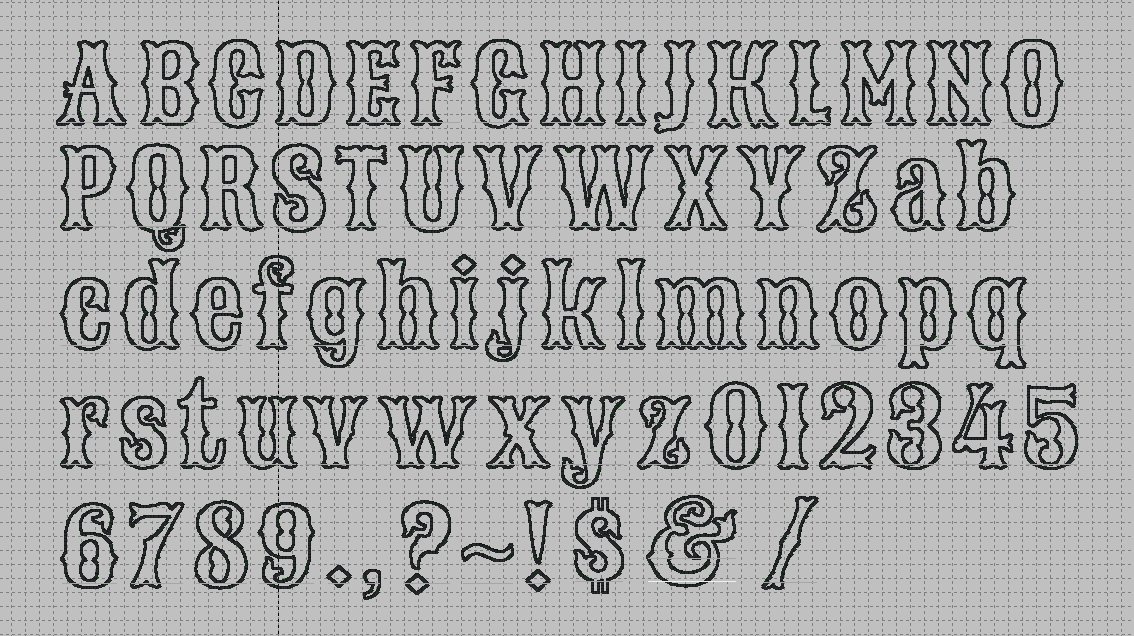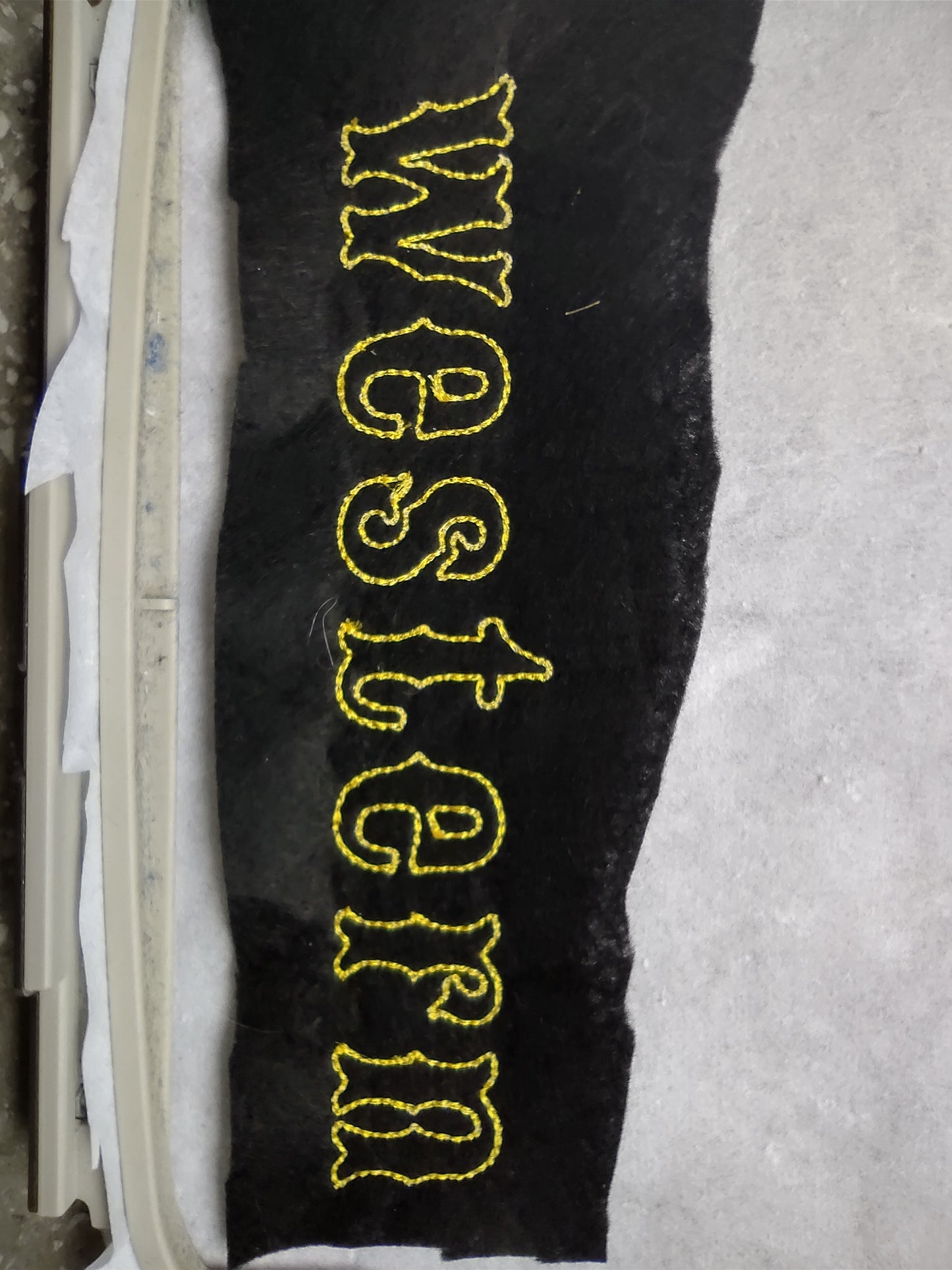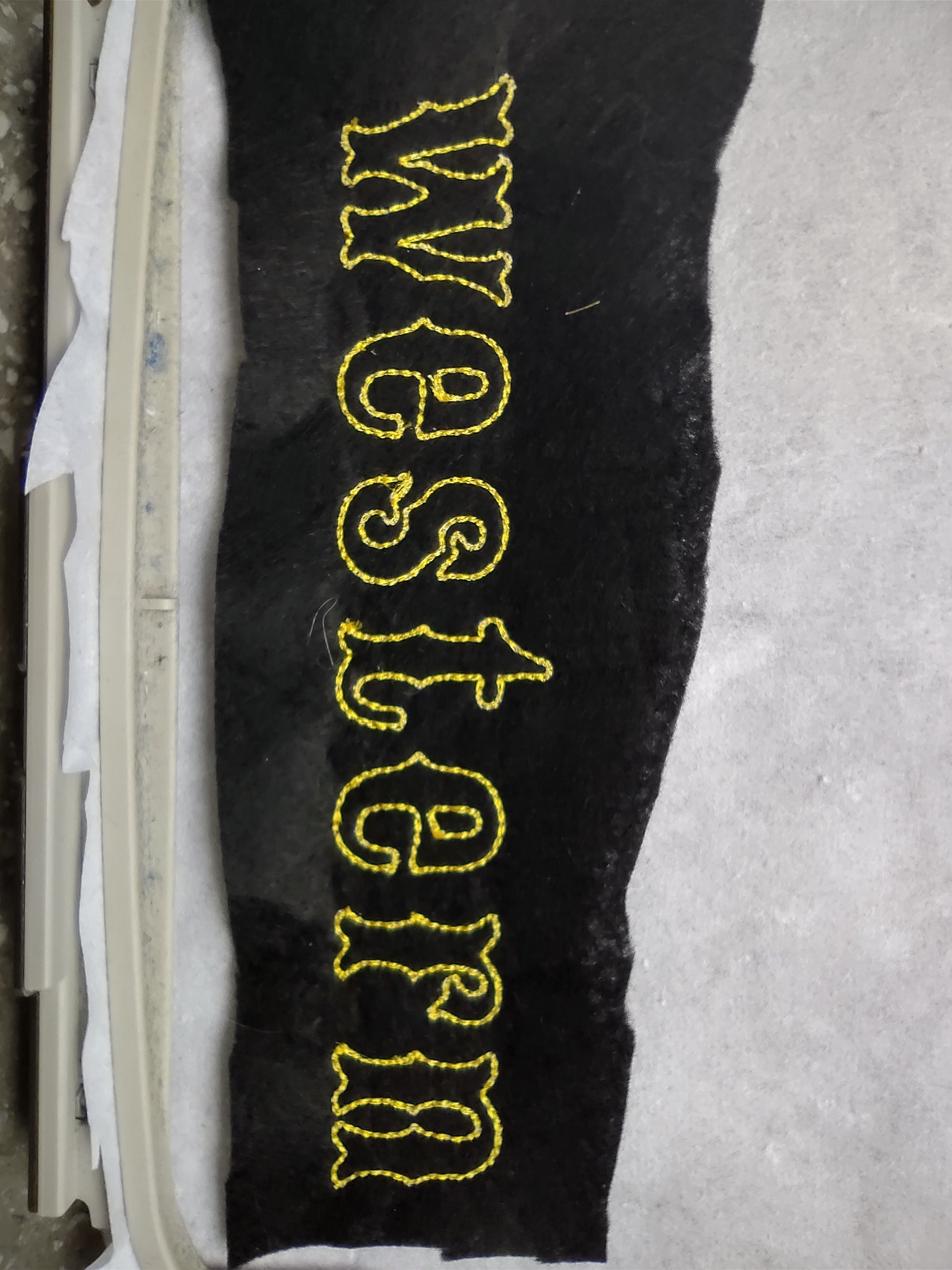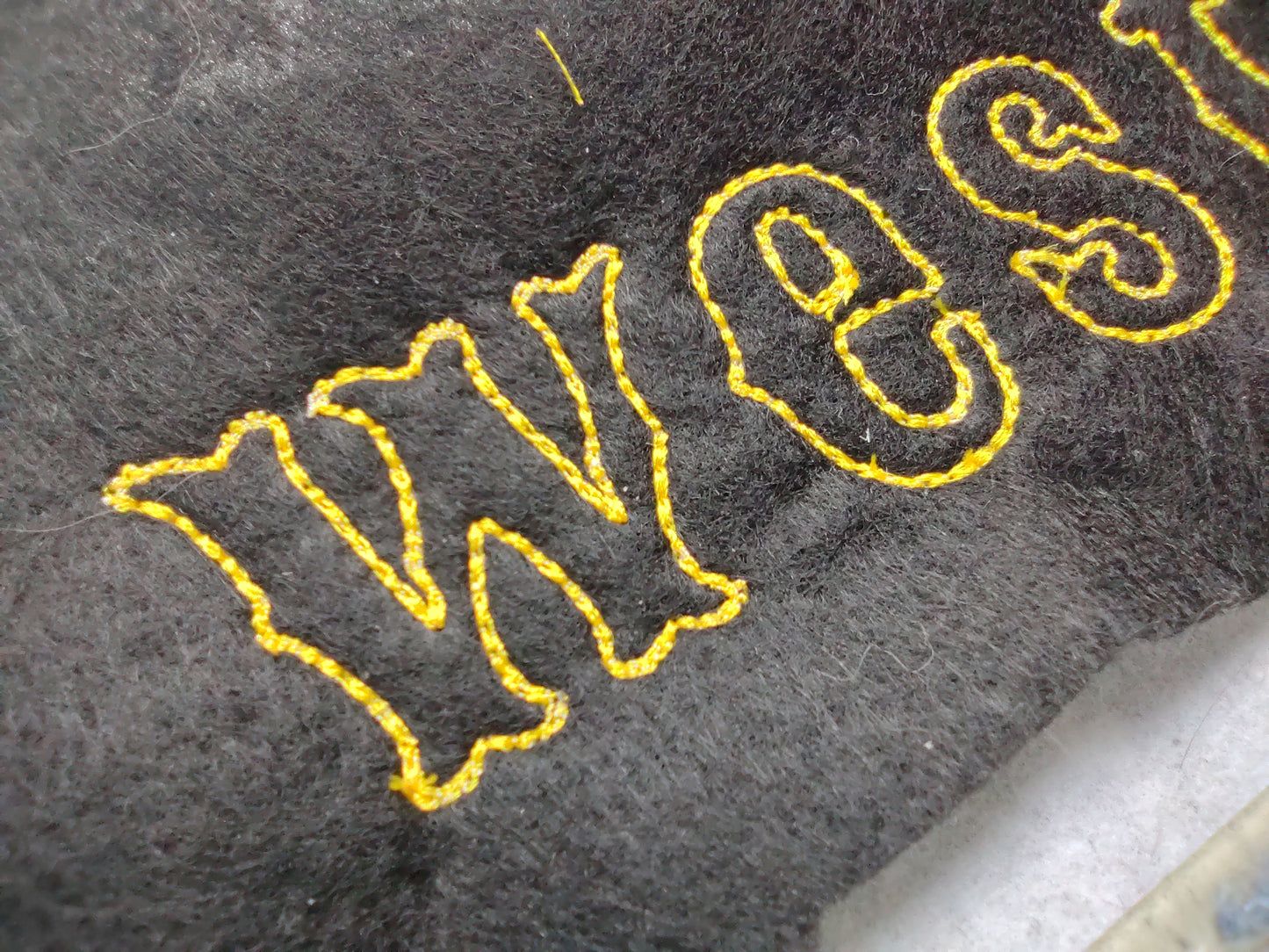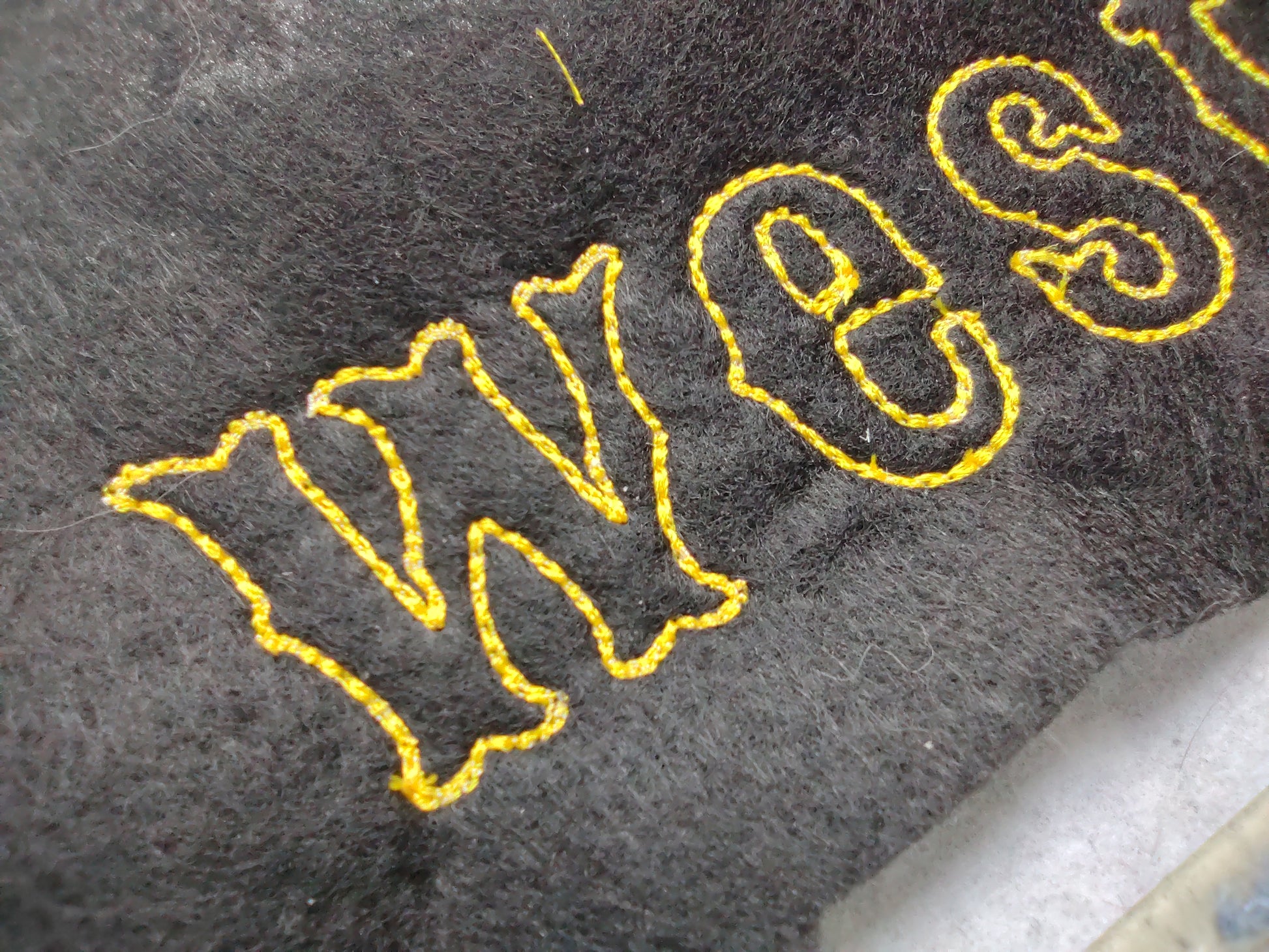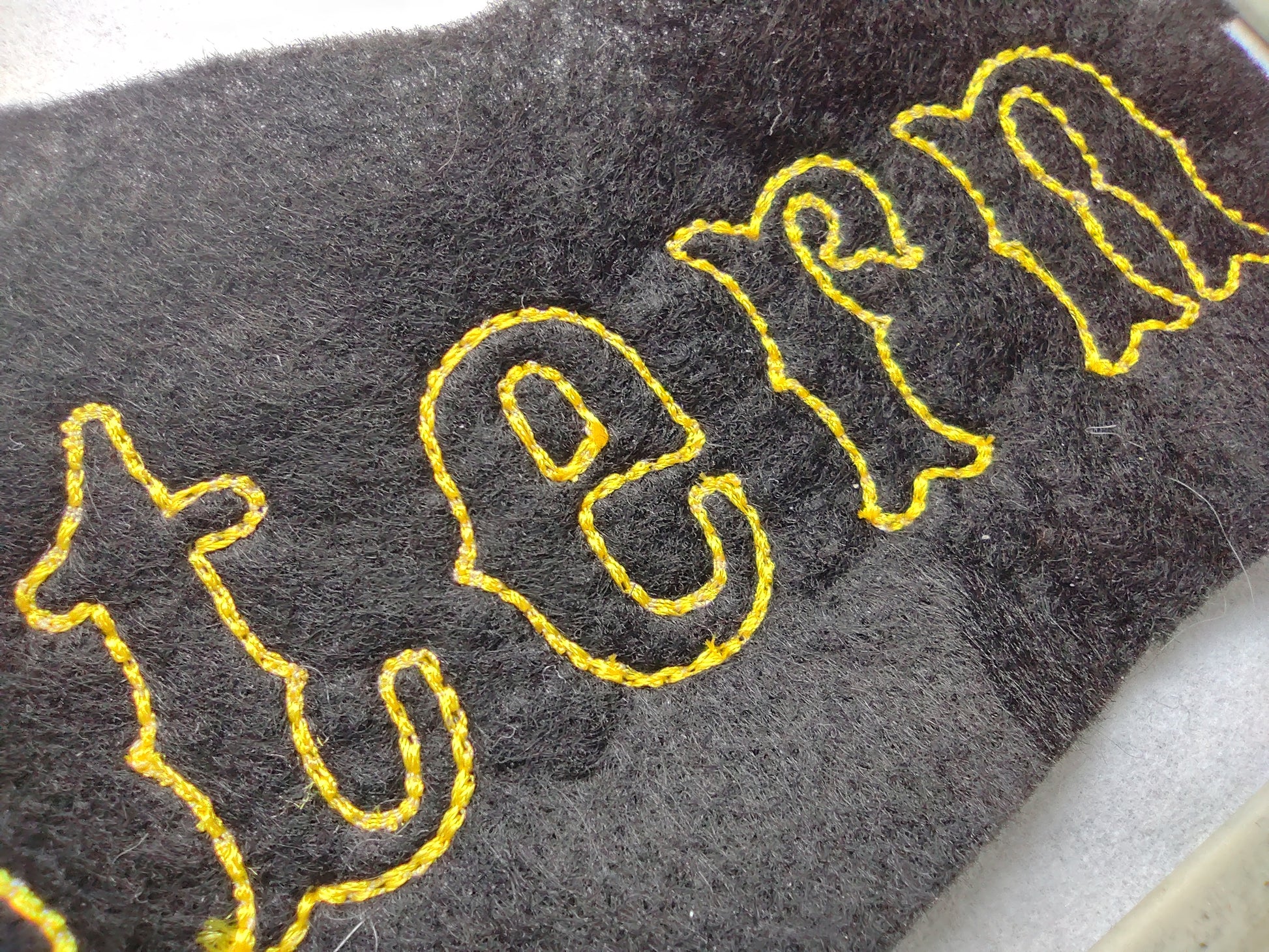
Western Native Bx Font, Applique Alphabet, Punctuation and Numbers with Bean Stitch Outline
This font is an APPLIQUE font, with 3 layers, placement stitch, tackdown stitch and decorative bean stitch.
This font will work great for rustic, farmhouse projects.